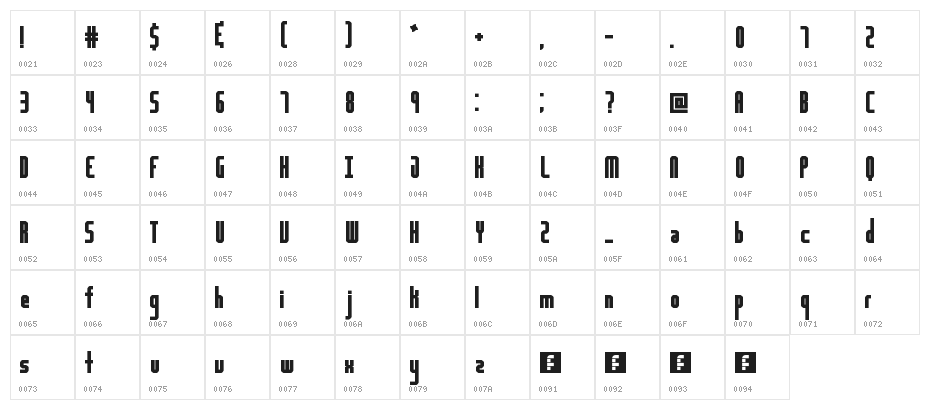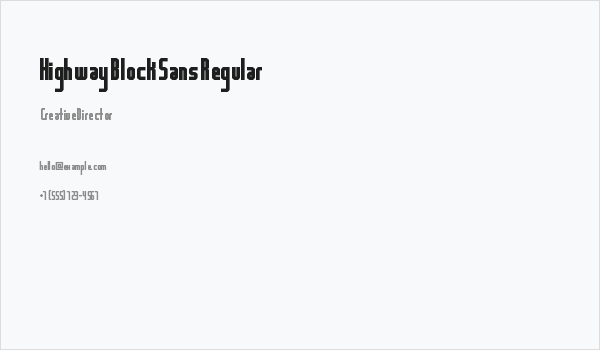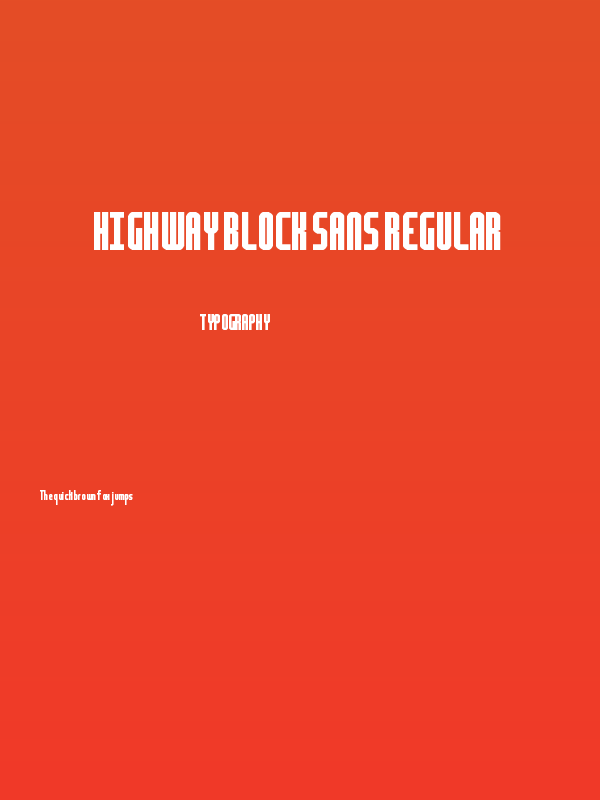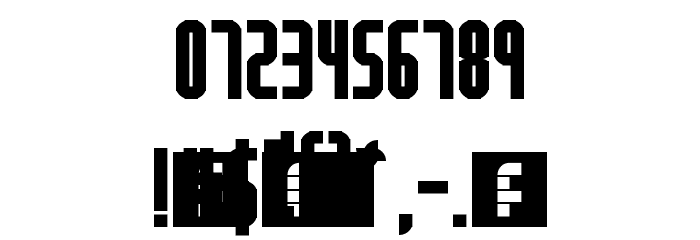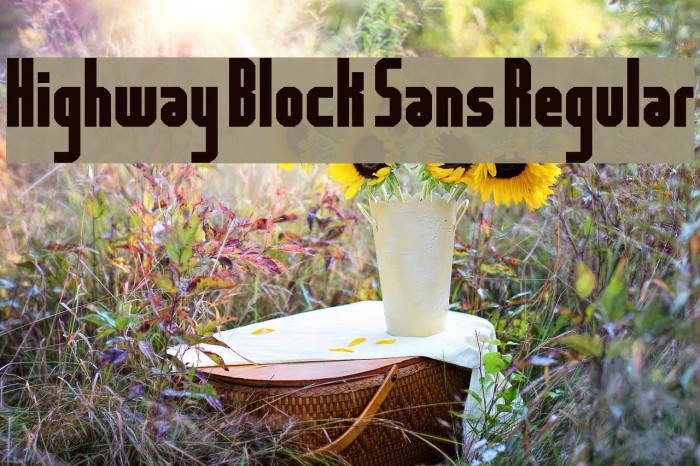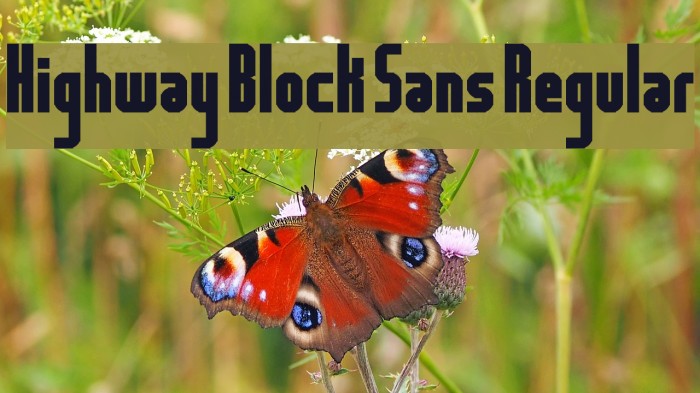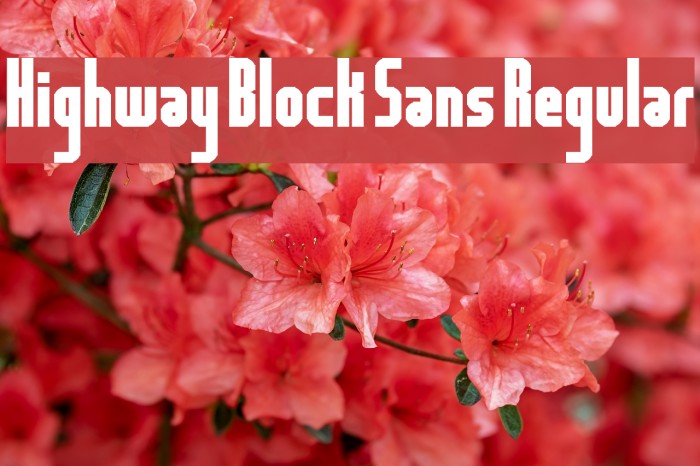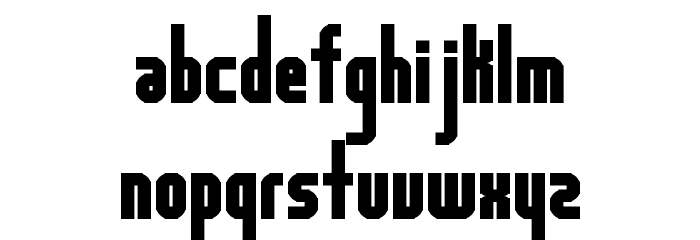
Highway Block Sans Regular Font
Highway Block Sans Regular Description
This font features a bold, geometric design with a blocky, sans-serif style. The characters are uniform in width, creating a cohesive and structured appearance. The uppercase letters are particularly striking, with sharp angles and a strong presence. The lowercase letters maintain the same boldness, ensuring readability and consistency. The numbers are equally bold, making them stand out for emphasis. Special characters are distinct and maintain the overall geometric theme. This font is ideal for projects that require a modern, impactful look.
| Proposed Projects | Ideal for signage, posters, branding, and headlines where a strong, modern impact is desired. |